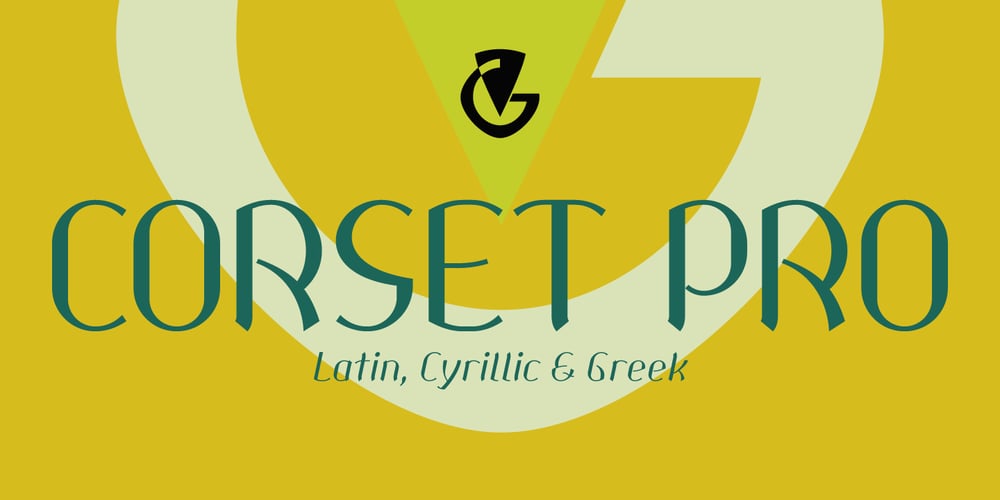
Corset Pro
Corset Pro font
Corset Pro Font Family was designed by Vangelis Dim. Gardikiotis and published by DBSV. Corset Pro contains 12 styles and family package options. The Corset Pro is not another font, but not exactly and the same, as the previous two (Khamai Pro, Aeolus Pro) but is simple a different… But it has common elements and is based on two earlier. A new style added is Inlier, has this advantage engagement with Βlack style in the same manner explained in Aeolus Pro. And this series is composed and includes 12 fonts with 625 glyphs each, with true italics and supports Latin, Greek and Cyrillic.